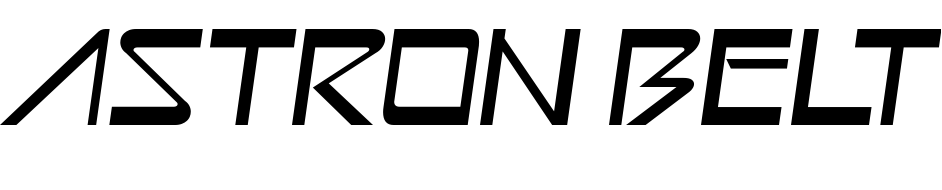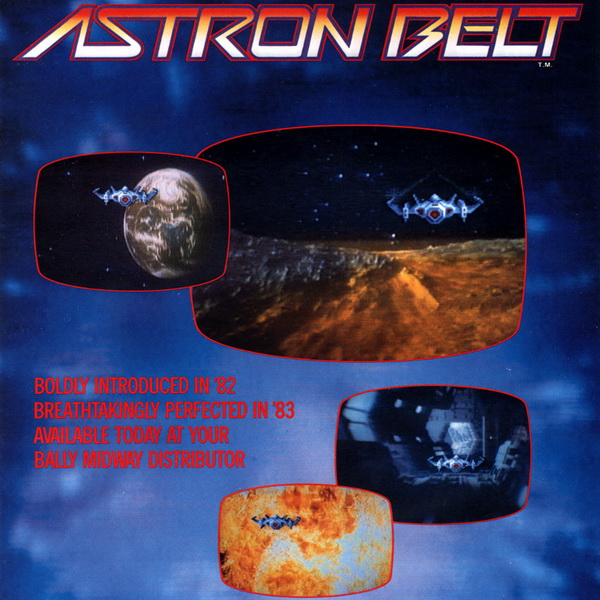
Astron Belt Font
Fonts in UseAstron Belt is an early laserdisc arcade game released in 1983 by Sega. It featured animated space combat scenes and allowed players to control a starfighter in a quest to destroy enemy spaceships and bases.
The logo of Astron Belt showcases a futuristic-style lettering reminiscent of a typeface named Astron Boy, created by Typodermic Fonts. You can freely download the font from the Fonts Used Section.